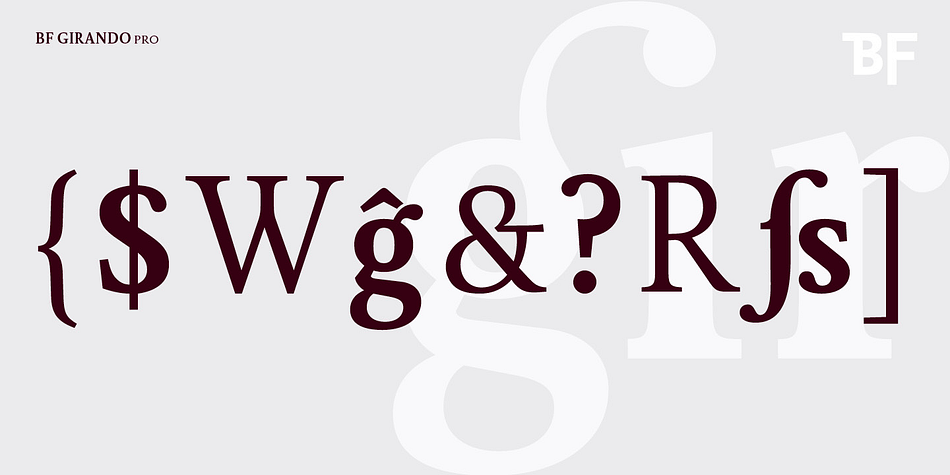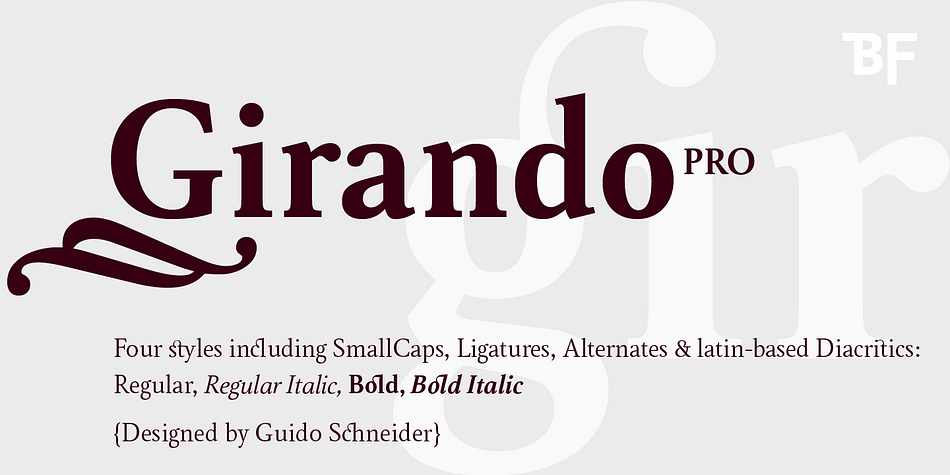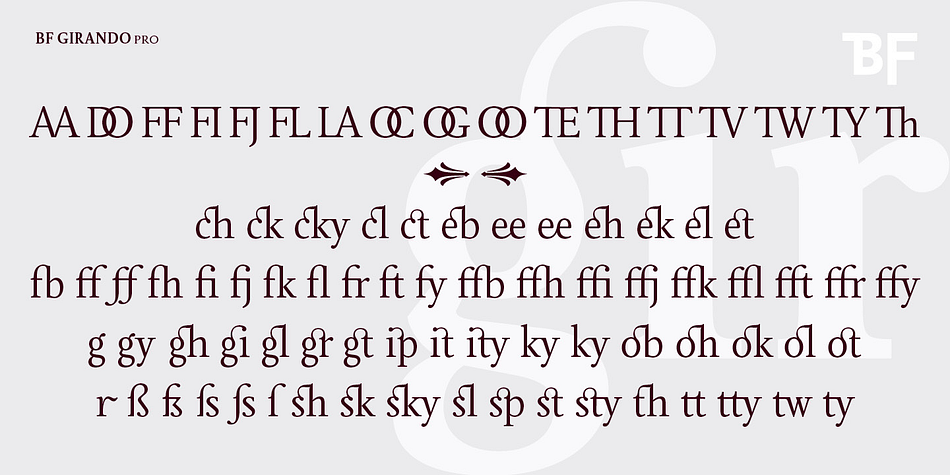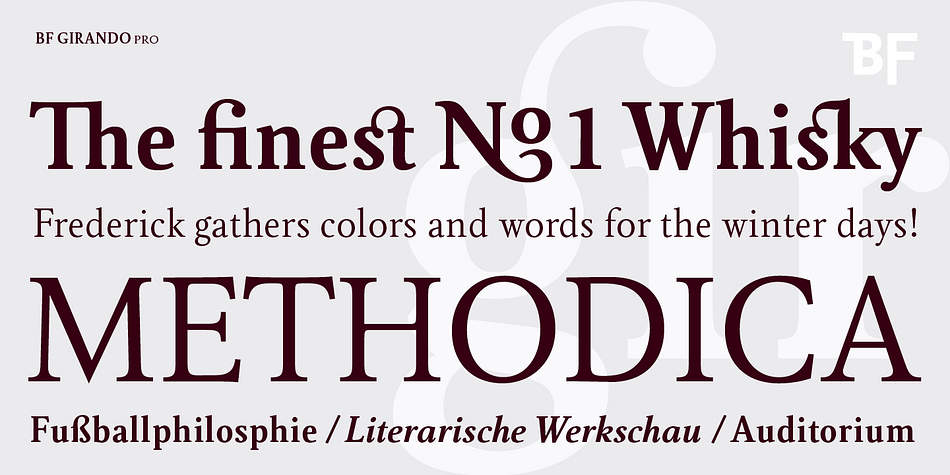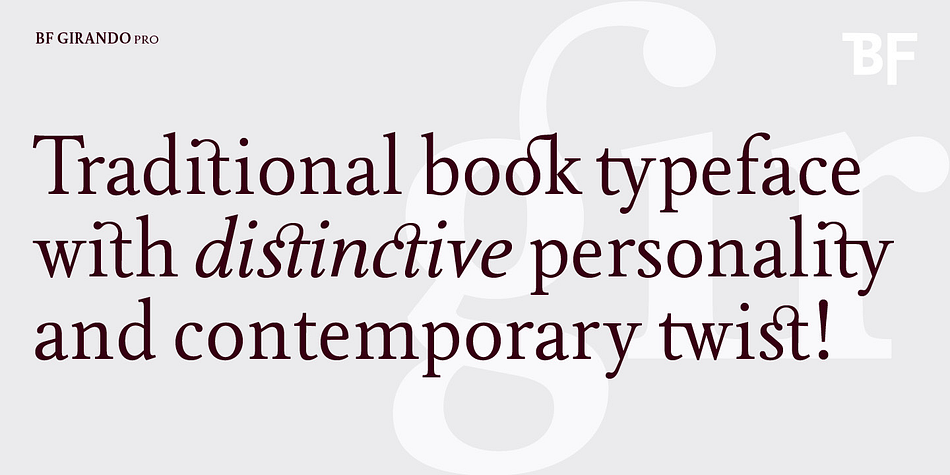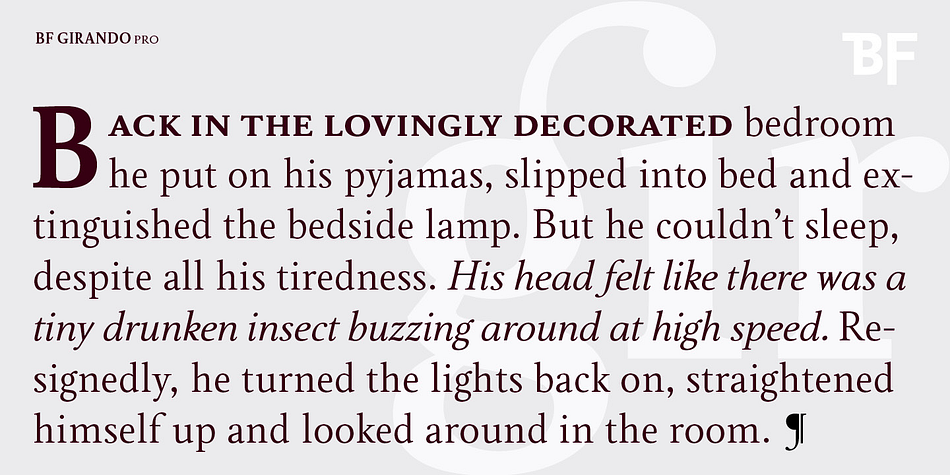
Designed by Guido Schneider, BF Girando Pro is a serif font family. This typeface has four styles and was published by BrassFonts.
Girando Pro is the traditional book typeface with distinctive personality and a contemporary twist!
Inspired by the everlasting ideas of Claude Garamond, it impresses with many fine details and an elegant shape – viable not only in small sizes. The family includes 2 harmonic weights, true italics, small caps, old style and lining figures and pretty as well as many useful and decorative ligatures.